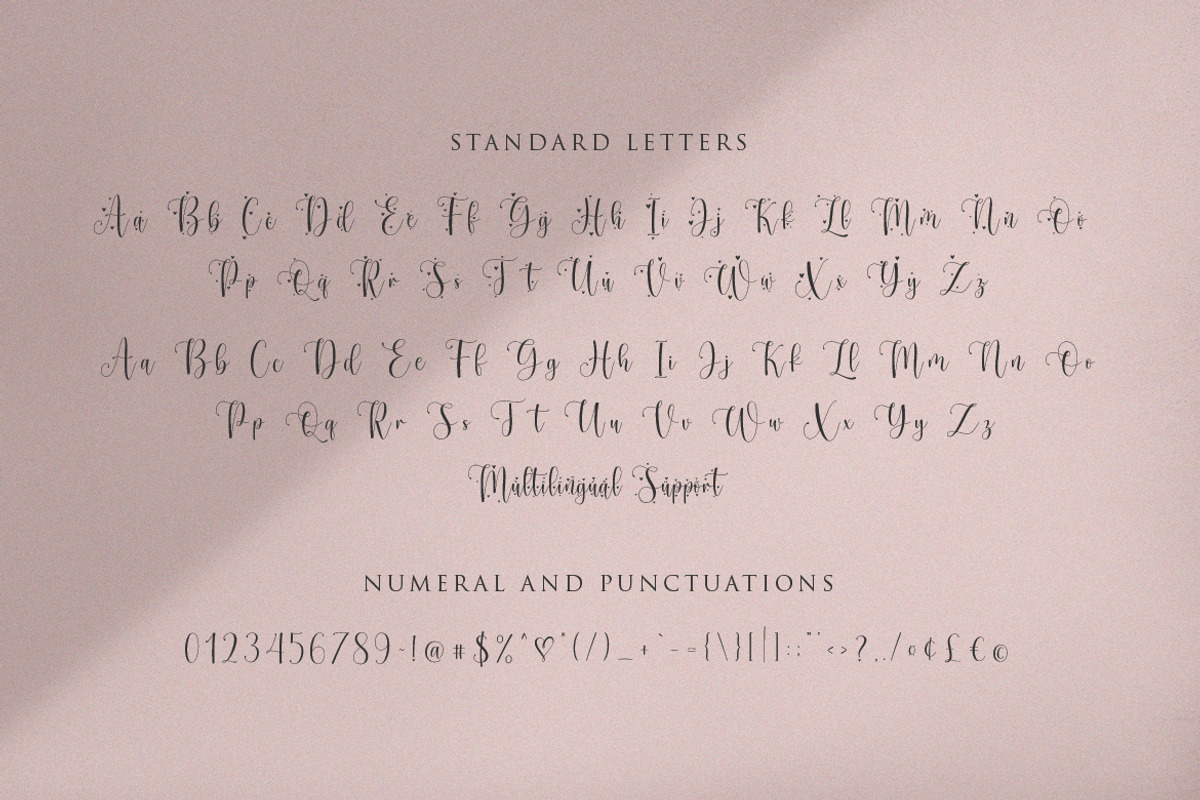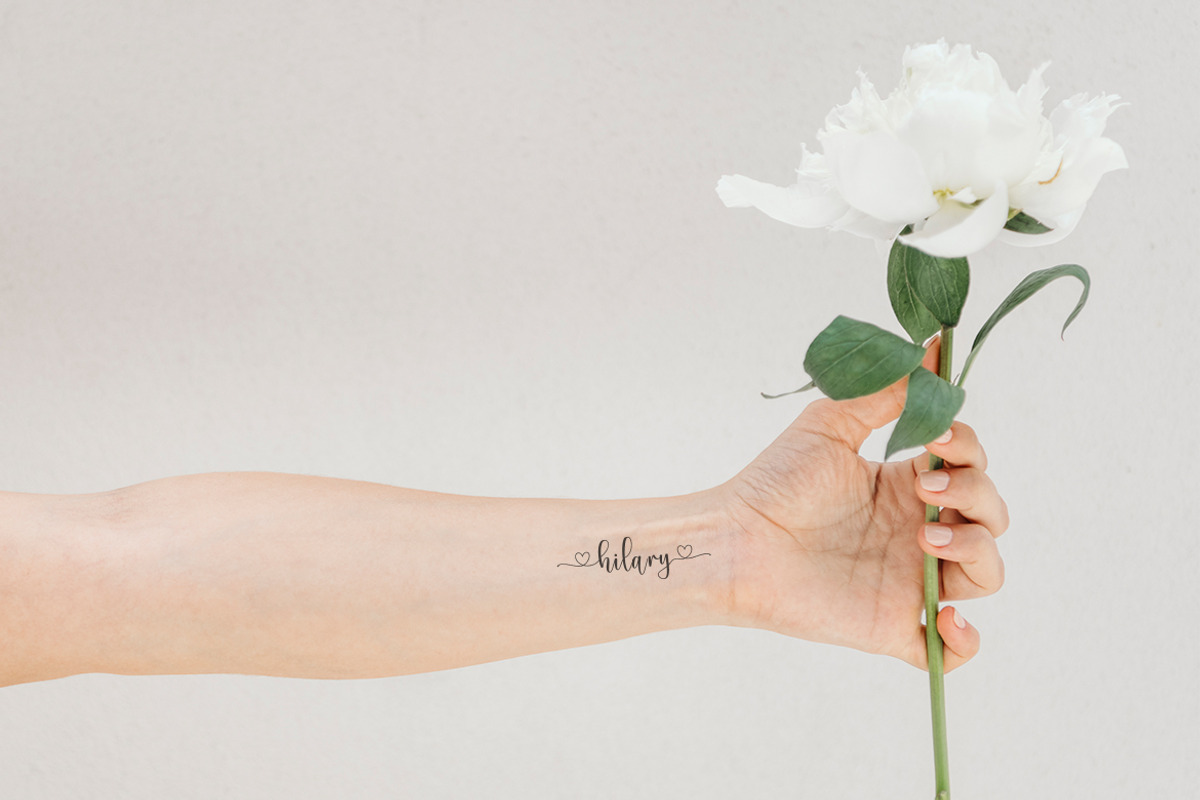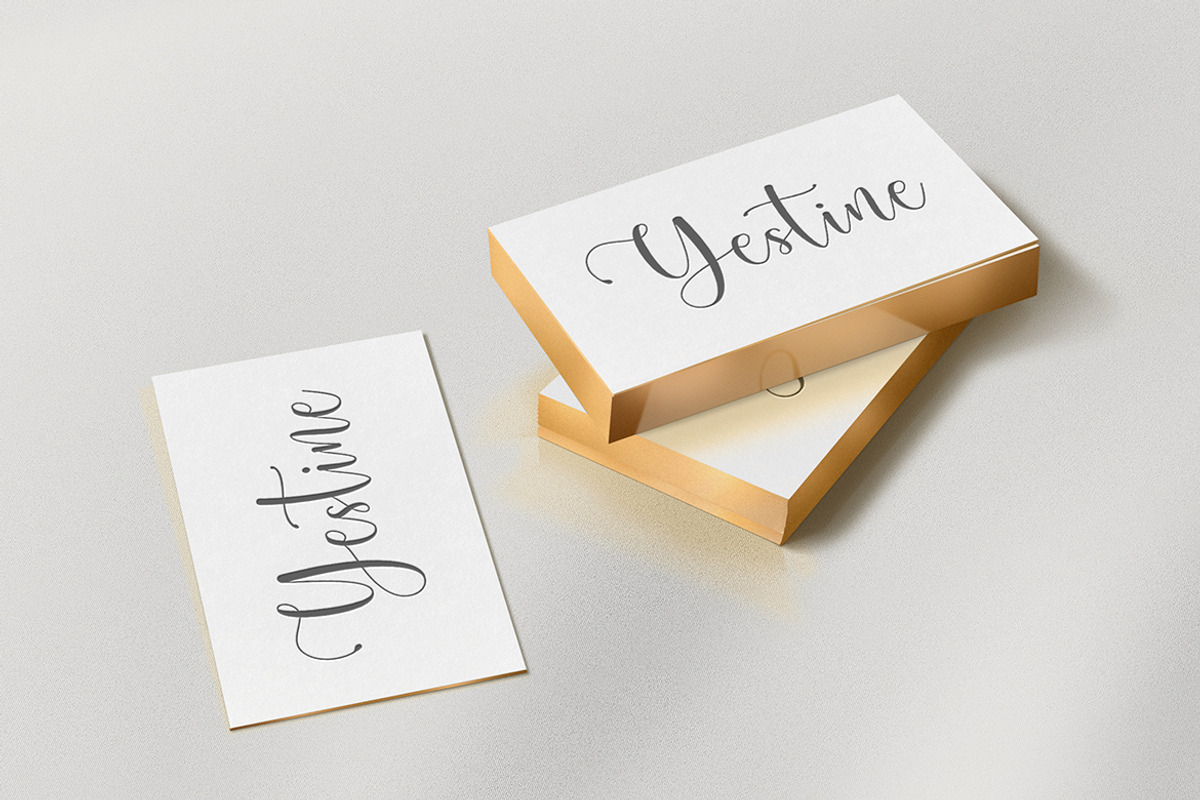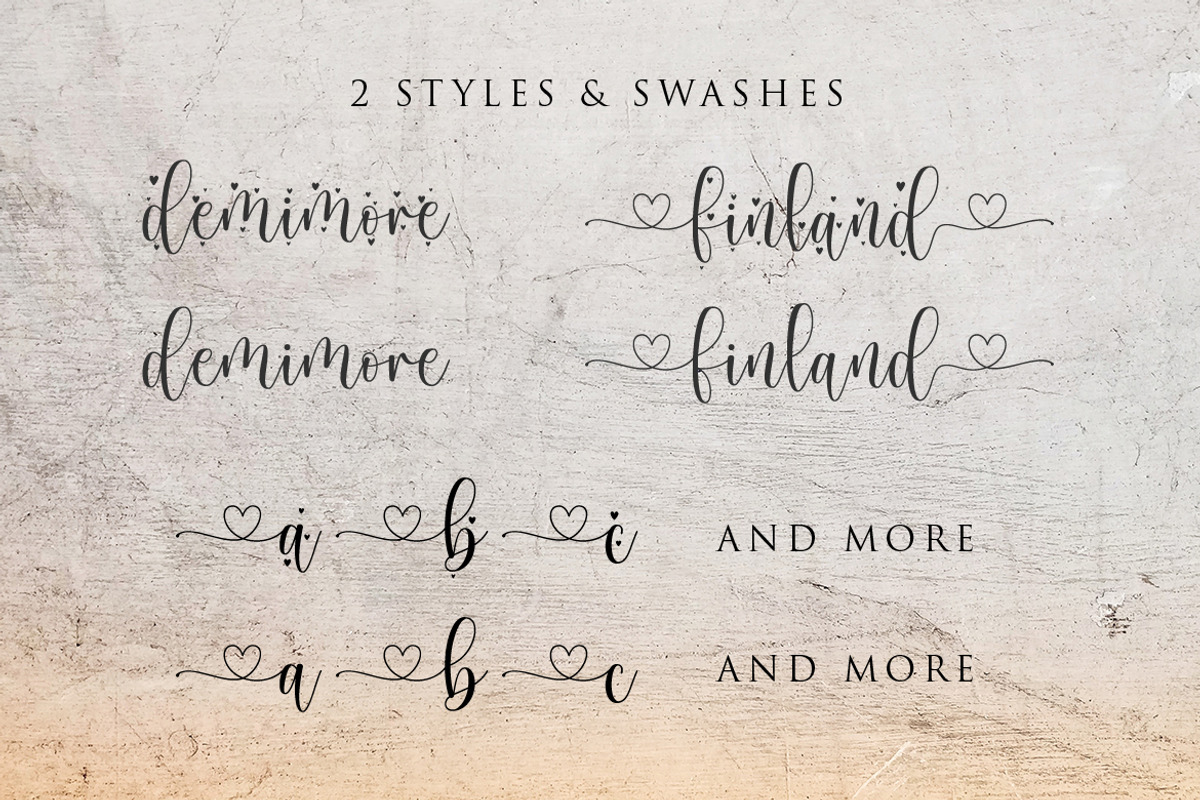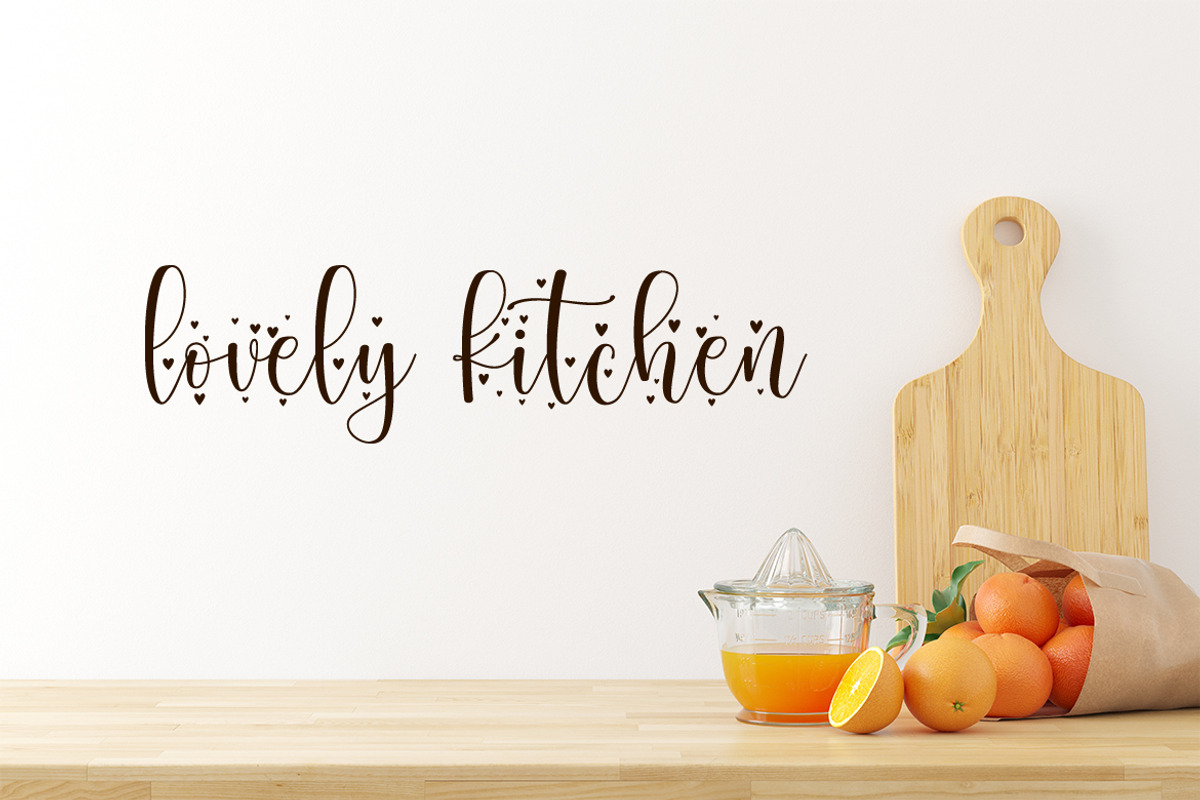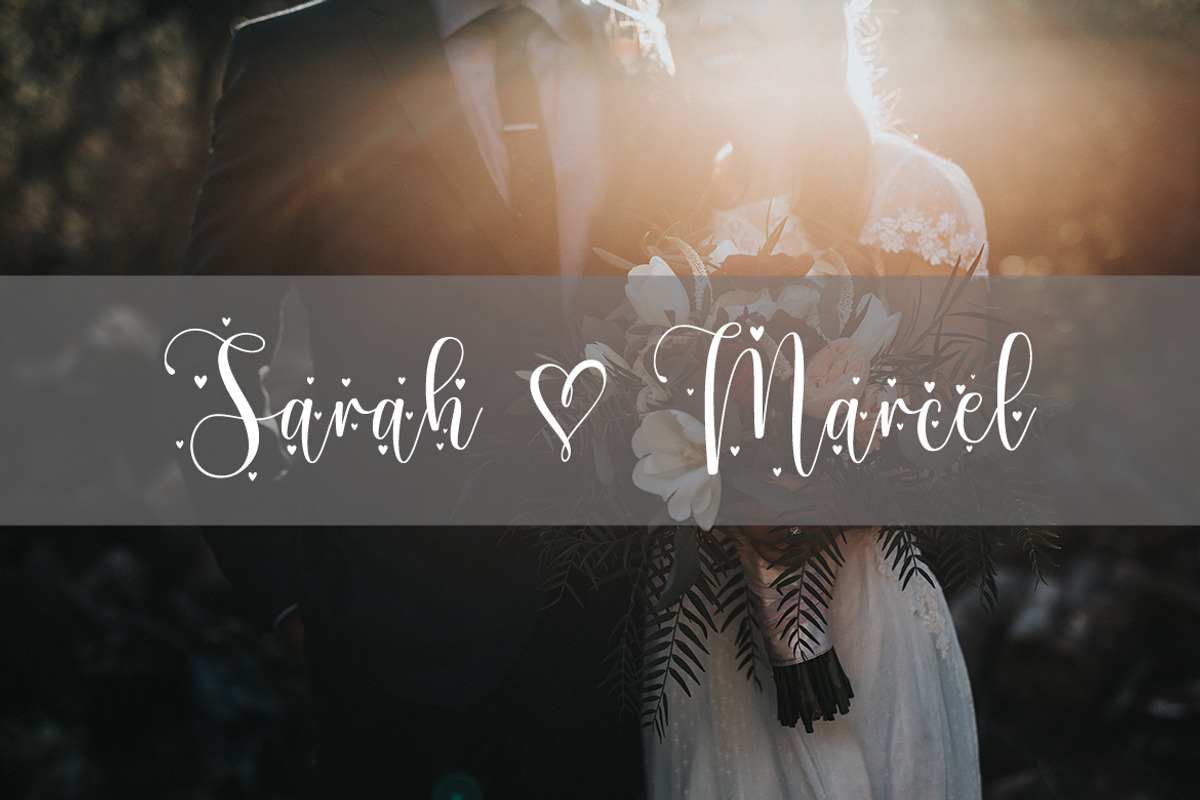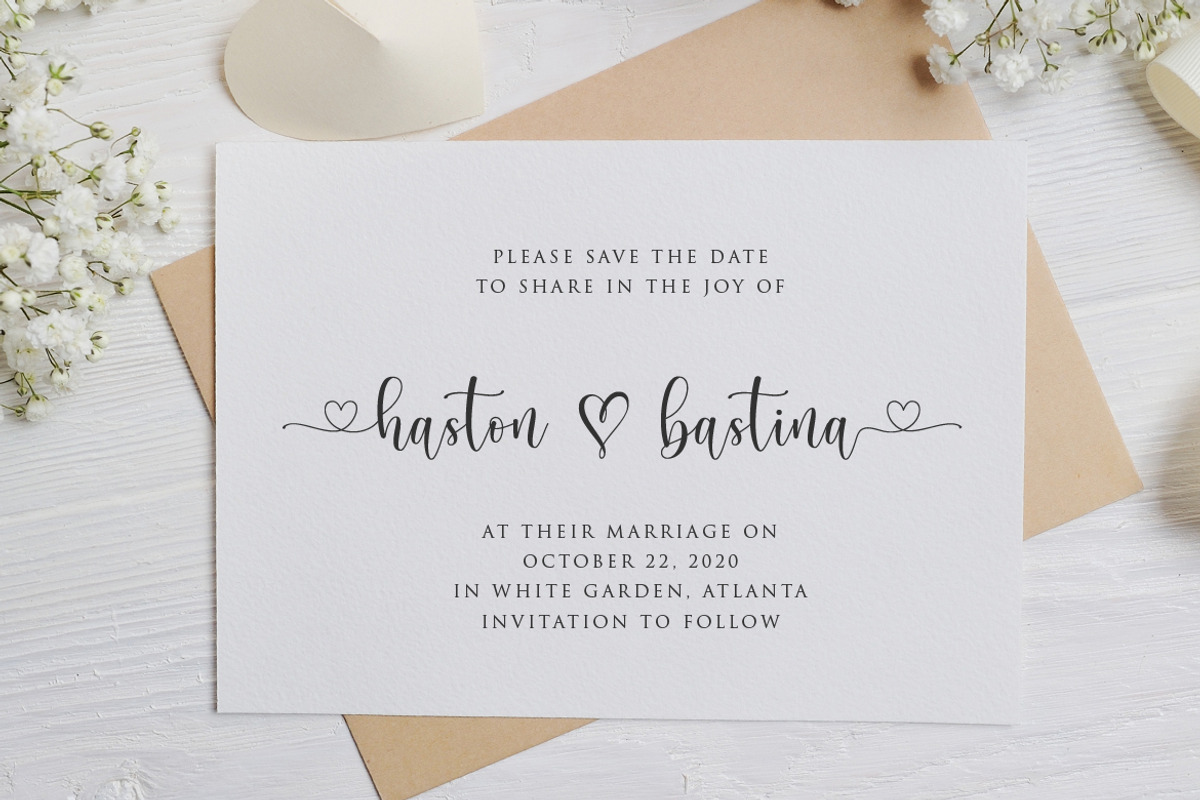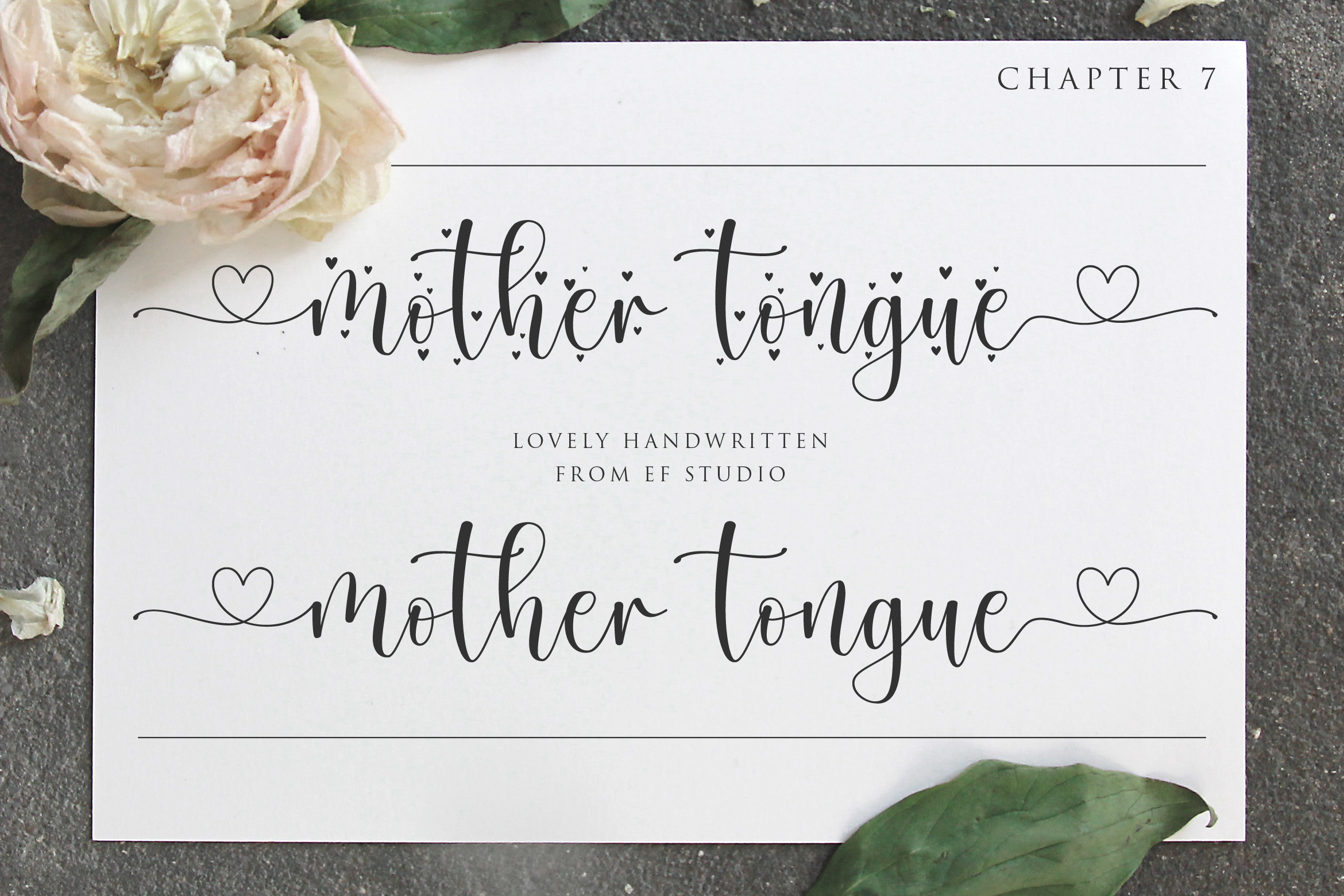
Mother Tongue - 2 Styles Font
mother tongue is a beautiful handwritten font with 2 styles and additional lowercase beginning and ending swashes. suitable for invitations, stationery, wedding designs, social media posts, advertisements, product packaging, product designs, labels, logos, special events and more.